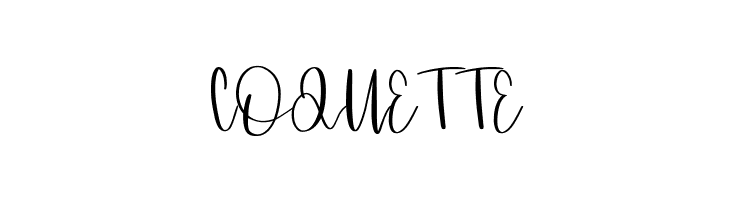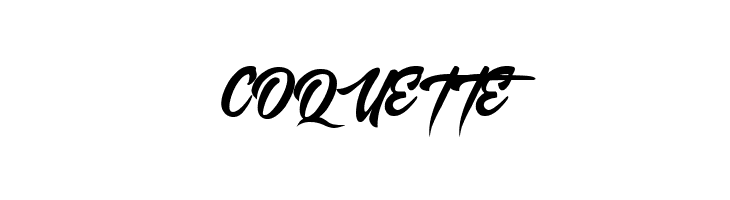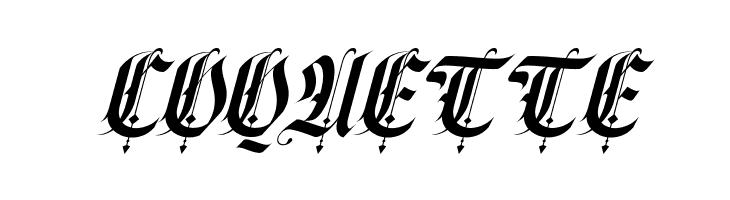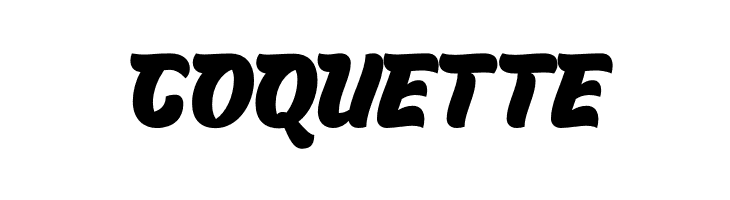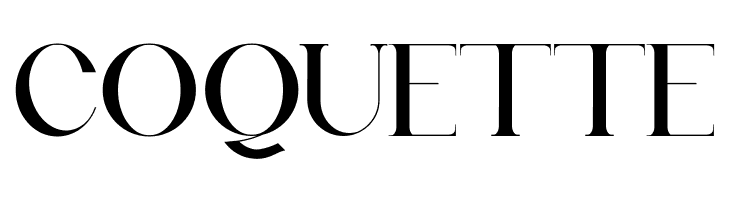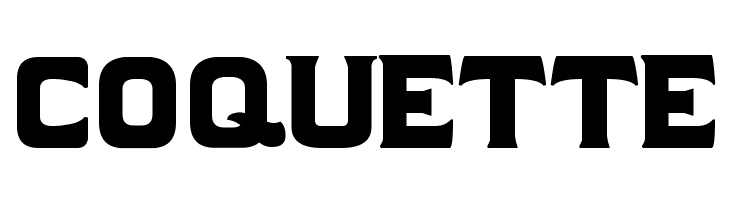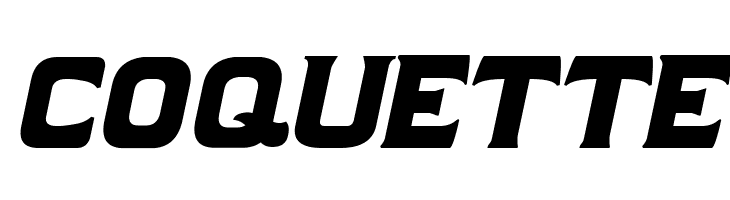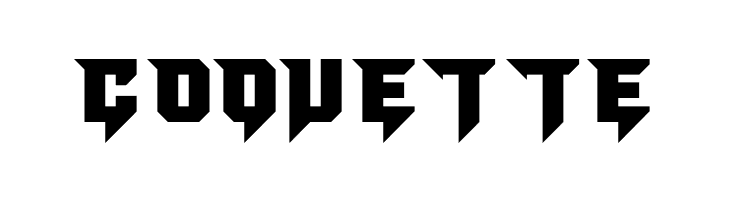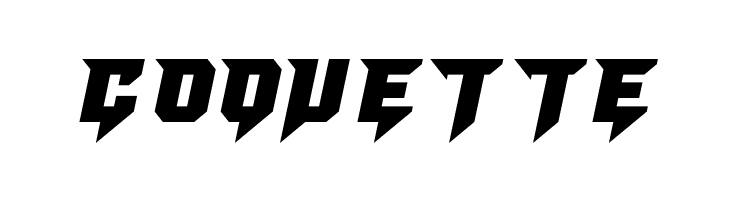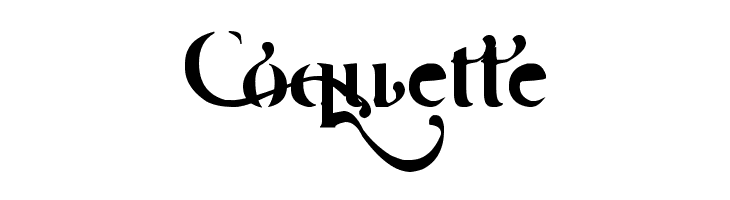
A bold, modern sans-serif font with geometric lines and consistent stroke width.
A bold, dynamic font with vintage flair and strong visual impact.
A bold, rough-textured font with a vintage, hand-crafted feel.
A bold, distressed font with a vintage, stamp-like appearance.
A bold, handwritten font with an energetic and playful style.
A classic serif font with high contrast and elegant, elongated characters.
A dynamic, calligraphic font with bold strokes and elegant curves.
A dynamic script font with elegant curves and sharp edges, perfect for creative projects.
A cursive, calligraphic font with elegant, flowing strokes.
A bold and dynamic script font with a flowing, energetic style.
A bold, modern font with thick strokes and unique curves.
A bold, playful font with a halftone texture and bubble-like appearance.
A bold, geometric font with sharp, angular edges and a modern, industrial feel.
A bold, angular font with a dynamic and energetic style.
A bold, angular, and italic font with a futuristic and energetic style.
An elegant, flowing script font with a sophisticated, handwritten style.
A high-contrast serif font with elegant, modern styling.
An elegant, flowing script font with graceful, cursive letterforms.
Business-themed pictogram font with office and teamwork silhouettes.
A bold, hand-drawn font with textured, sketch-like strokes.
A playful, cursive font with flowing, interconnected strokes and a whimsical charm.
A bold, angular font with a modern yet vintage flair.
A bold, modern display font with strong, block-like characters.
A bold, italic display font with dynamic and energetic styling.
A playful handwritten font with a casual, dynamic style.
An ornate, calligraphic font with intricate swashes and flourishes.
A bold, geometric font with a modern and futuristic design.
A modern, geometric font with bold, sharp edges and a futuristic style.
A modern blackletter font with italic slant and intricate detailing.